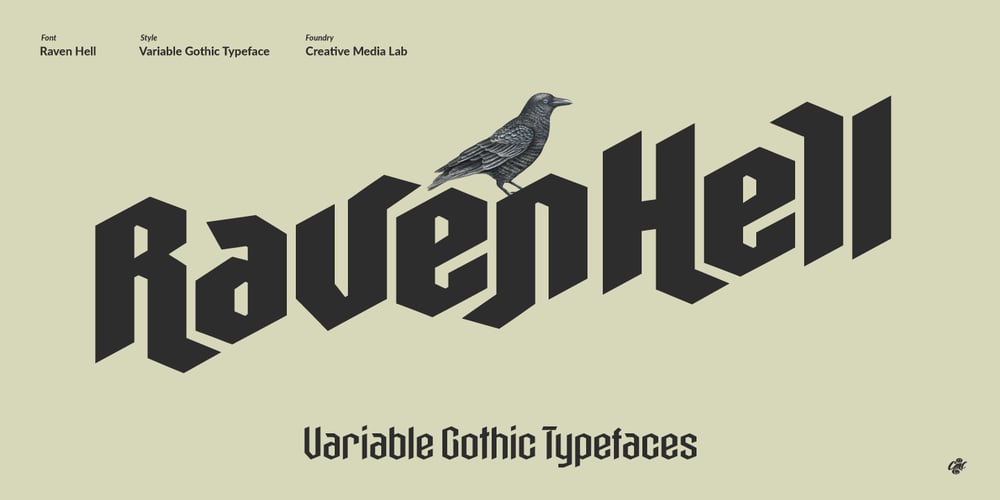
Raven Hell Font Family was designed by Kadek Mahardika and published by Creativemedialab. Raven Hell contains 25 styles and family package options. Raven Hell is a simple and modern gothic font. What’s unique about Raven hell is that it can be sans or blackletter, depending on your choice of design theme. Raven Hell can be used in many types of modern designs ranging from product labels to tattoos, badges, logos, poster titles, and much more.